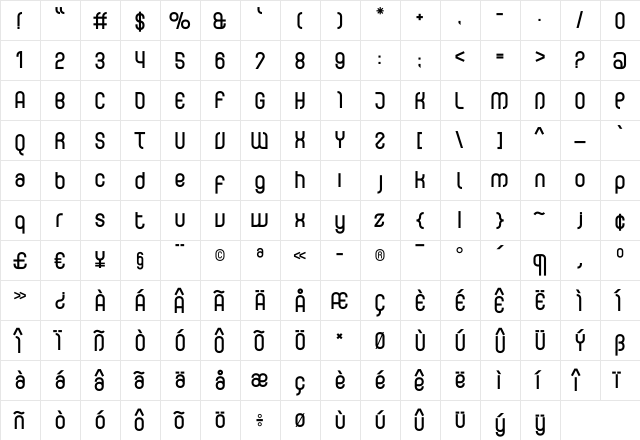
Curvature-Bold Regular
Design Context for Curvature-Bold Typeface
Curvature-Bold offers clean, dependable letterforms without strong stylistic allegiance, making it a practical choice for designers who need flexibility. Its bold stroke weight gives it real presence on the page.